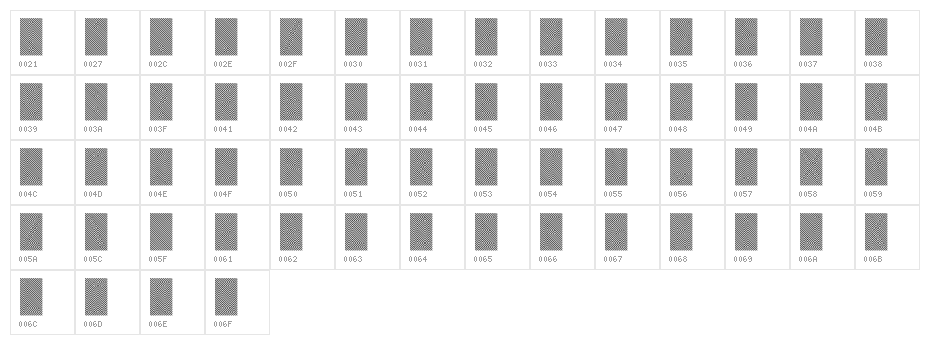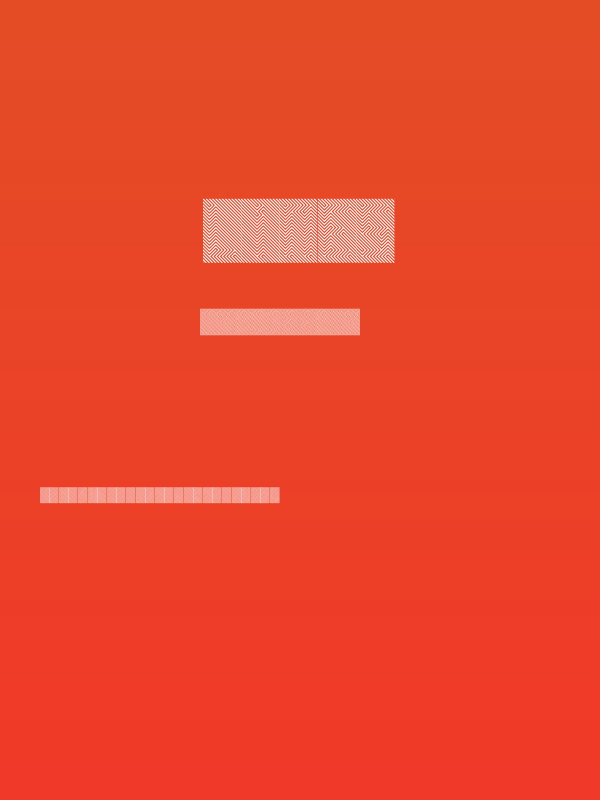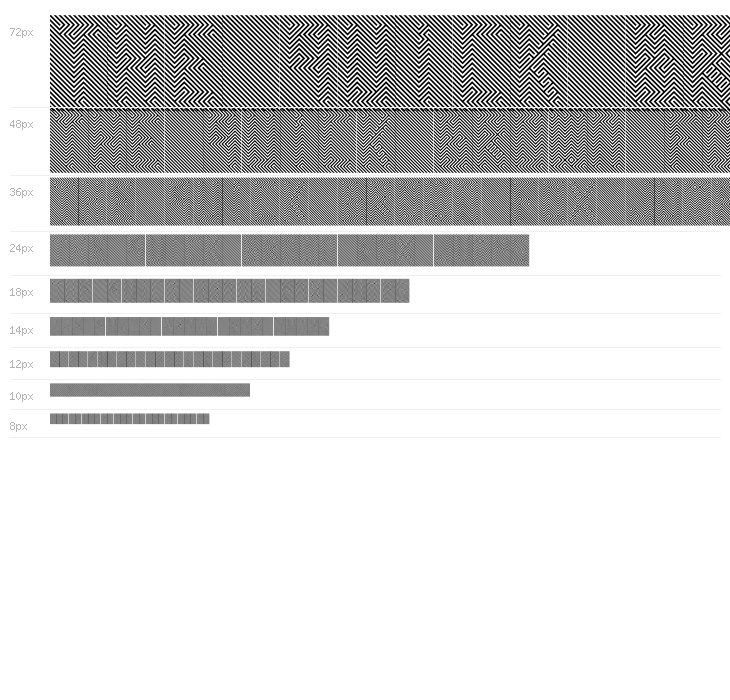
Lines Font
Lines Description
A highly decorative and complex font composed entirely of intricate, maze-like line patterns forming each character. The letters and numbers are constructed with continuous angular lines creating a dense, geometric texture. The font is difficult to read due to the overwhelming pattern and lack of clear letterform boundaries.
| Overall Style | Decorative, Abstract, Geometric |
| Use Case | Headlines, Logos, Artistic projects |
| Proposed Projects | Artistic posters, abstract design projects, decorative titles, experimental graphic design. |